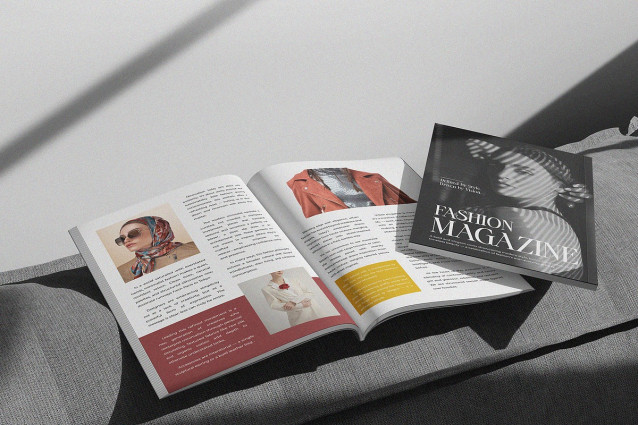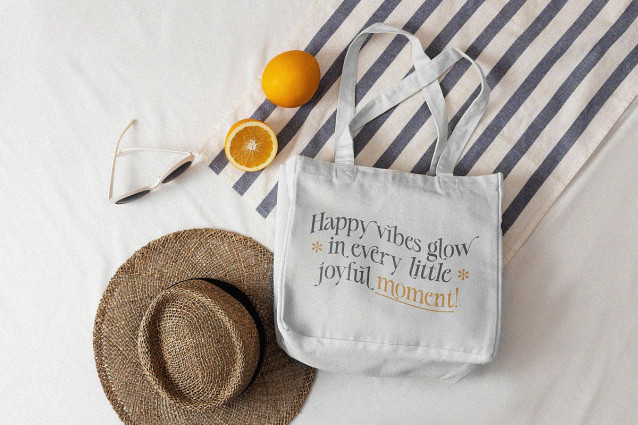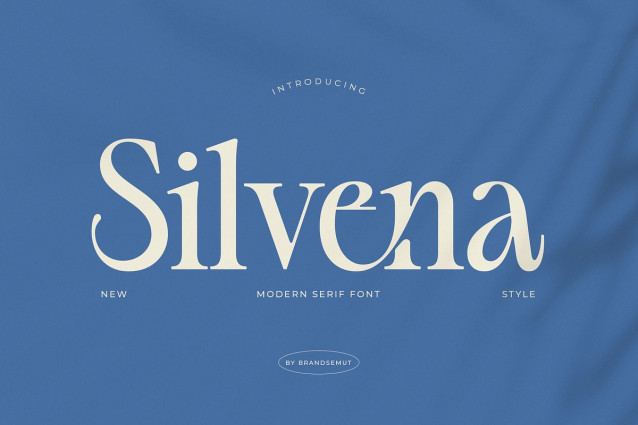
Silvena Font
Silvena Font is a modern serif font with a clean, elegant, and timeless design. Its stylish curves and sharp details bring a perfect balance between classic sophistication and contemporary aesthetics. Crafted with precision, Silvena is designed to enhance branding, editorial layouts, and creative projects that require a touch of professionalism and elegance.
This versatile serif font works beautifully in both print and digital formats, making it an essential typeface for designers, entrepreneurs, and creatives who want to elevate their visual identity. Whether used for branding, logos, magazine headlines, packaging, or web design, Silvena delivers a refined and luxurious typographic style.